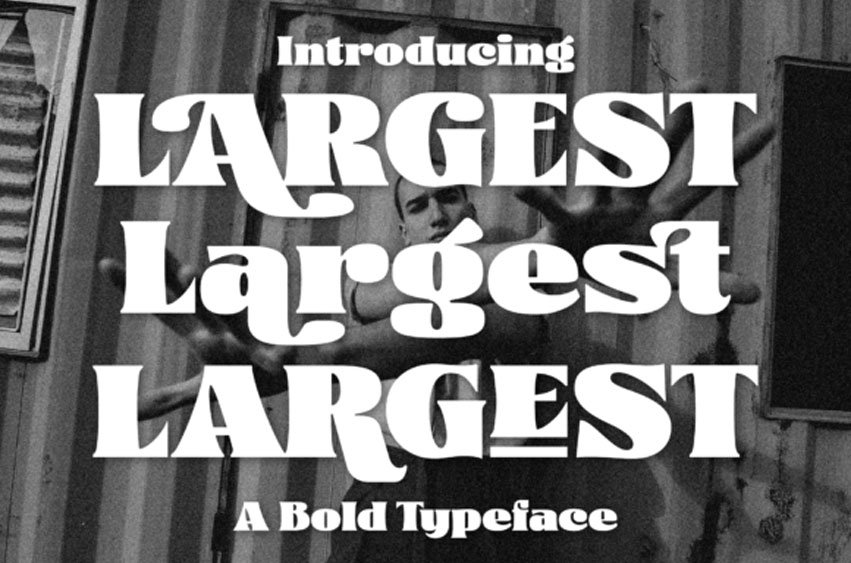
Largest Font
Largest Font Are you looking to make your headlines more eye-catching? If so, Largest is perfect for you!
This typeface style stands out from the crowd, making it ideal for grabbing attention. Whether you’re looking to make a statement on a poster, logo, card, website, social media, or even just overlay text, Largest is a great choice.
With its bold and heavy look, it will give your headlines the added pop they need.